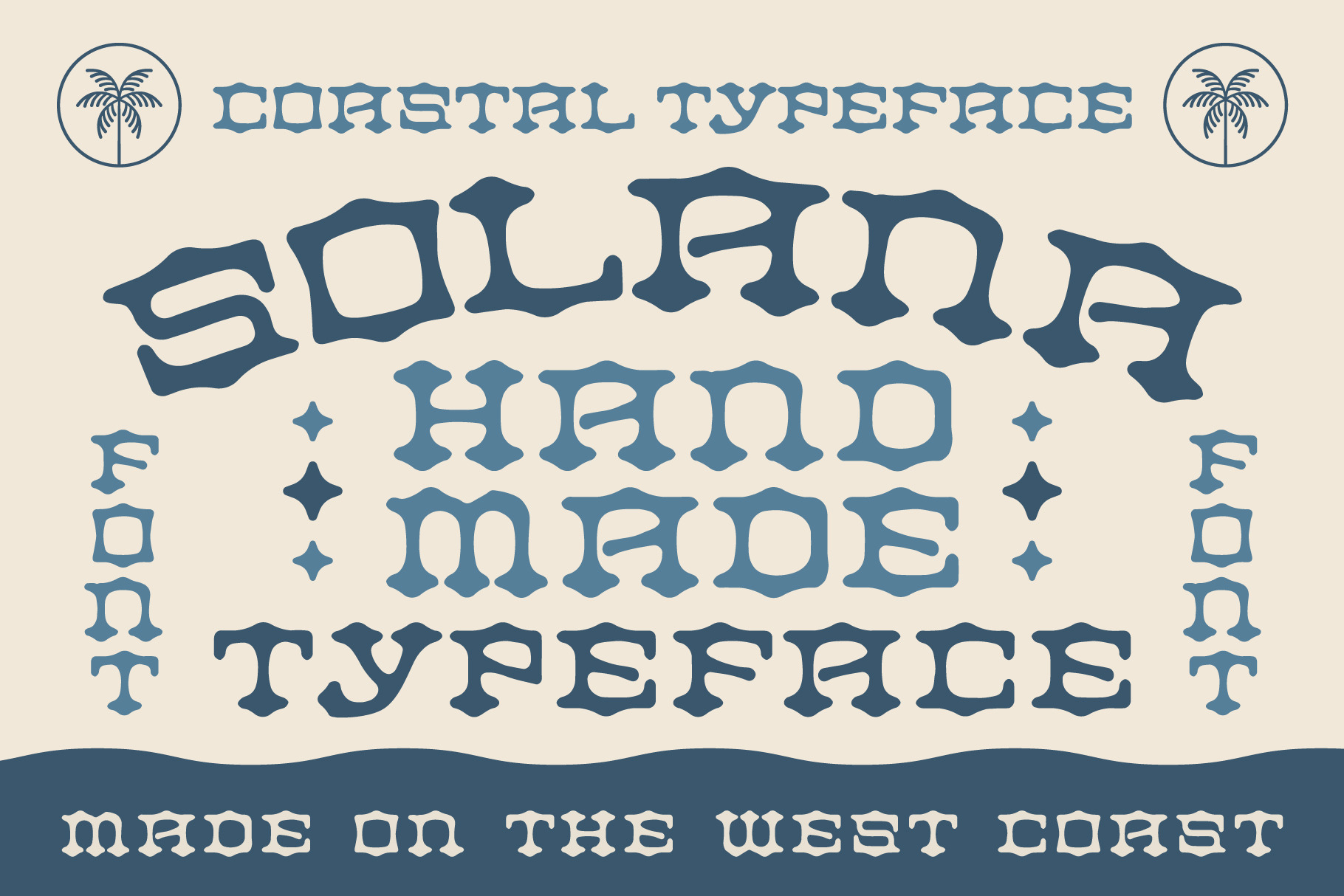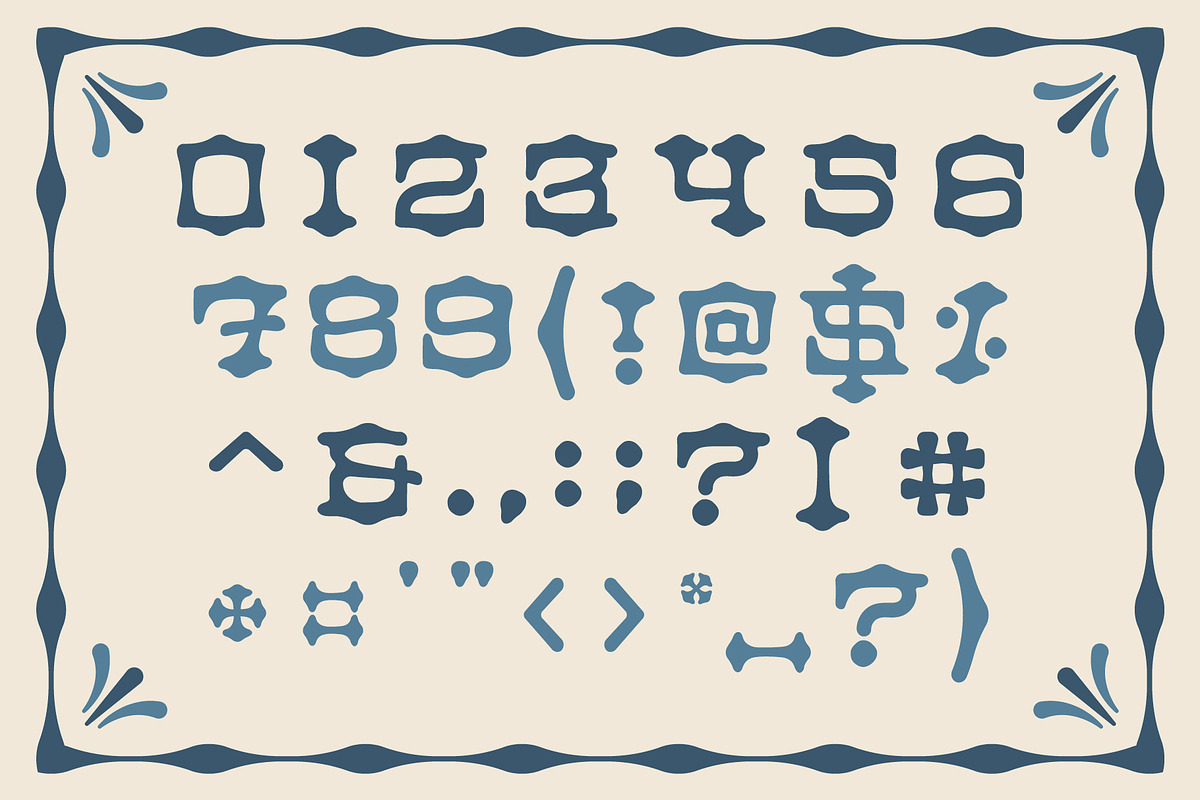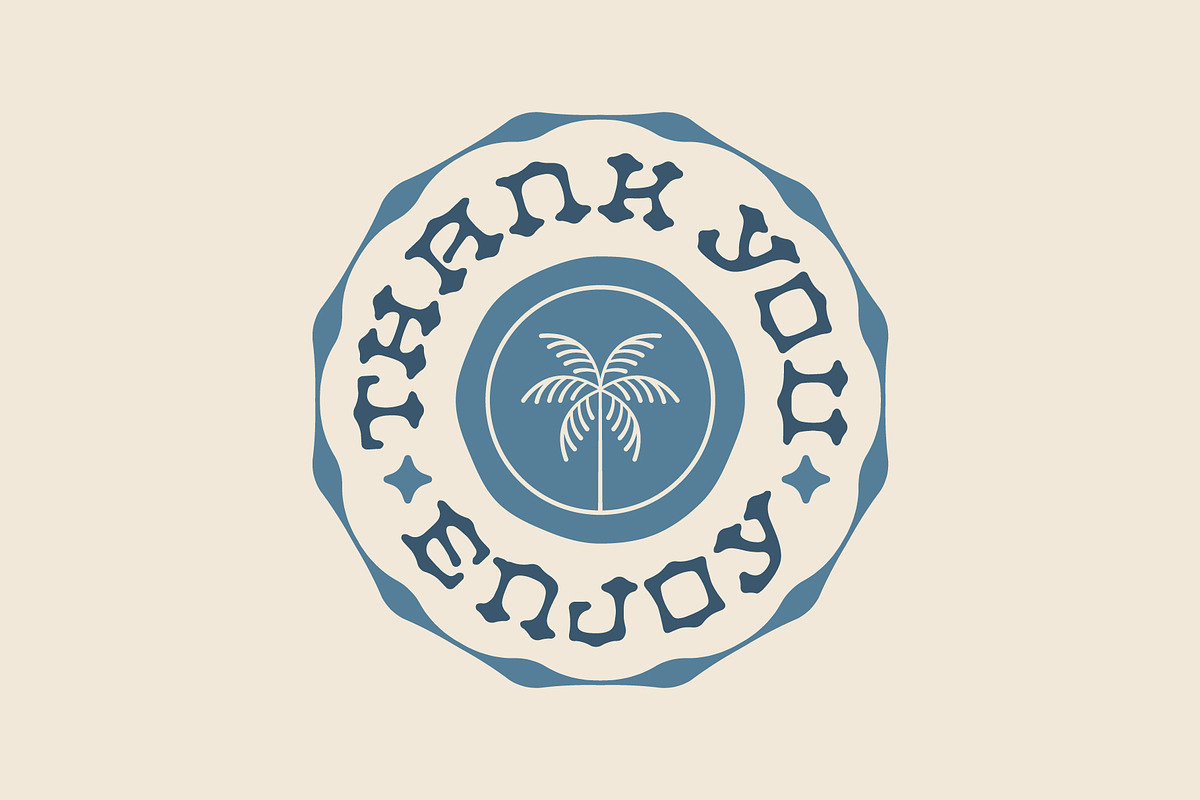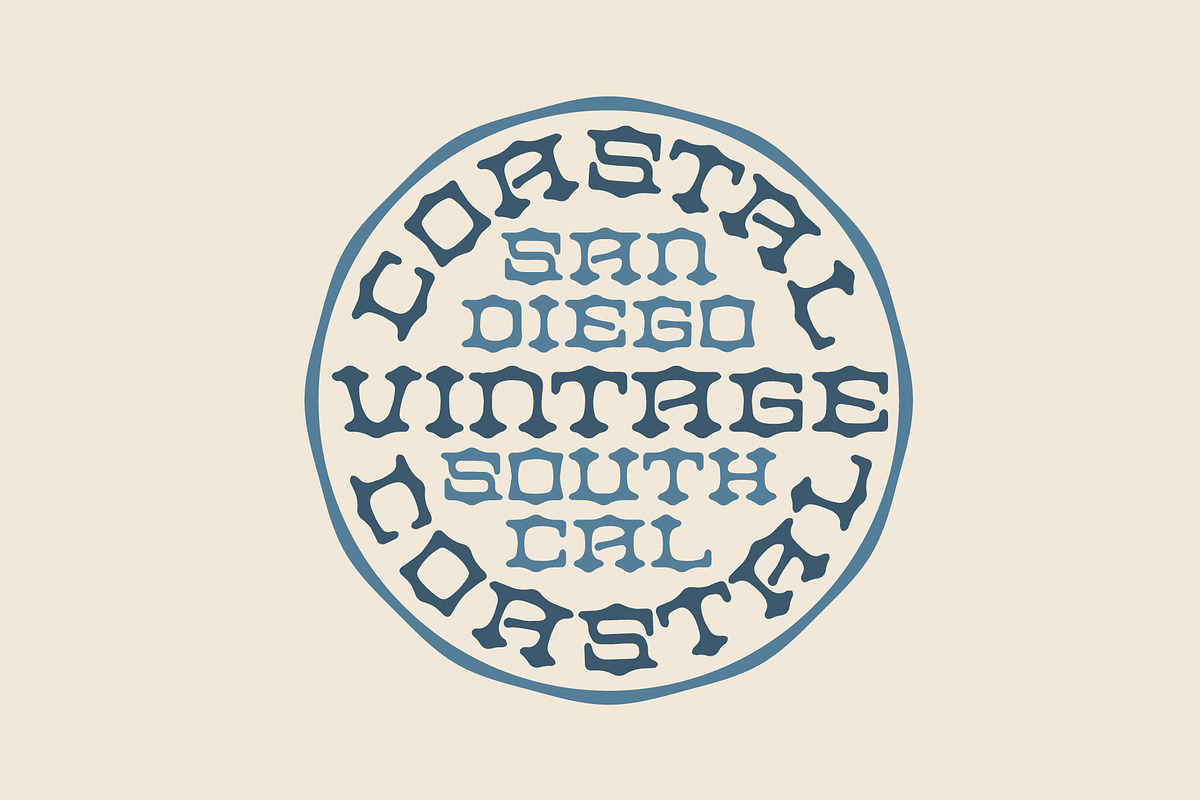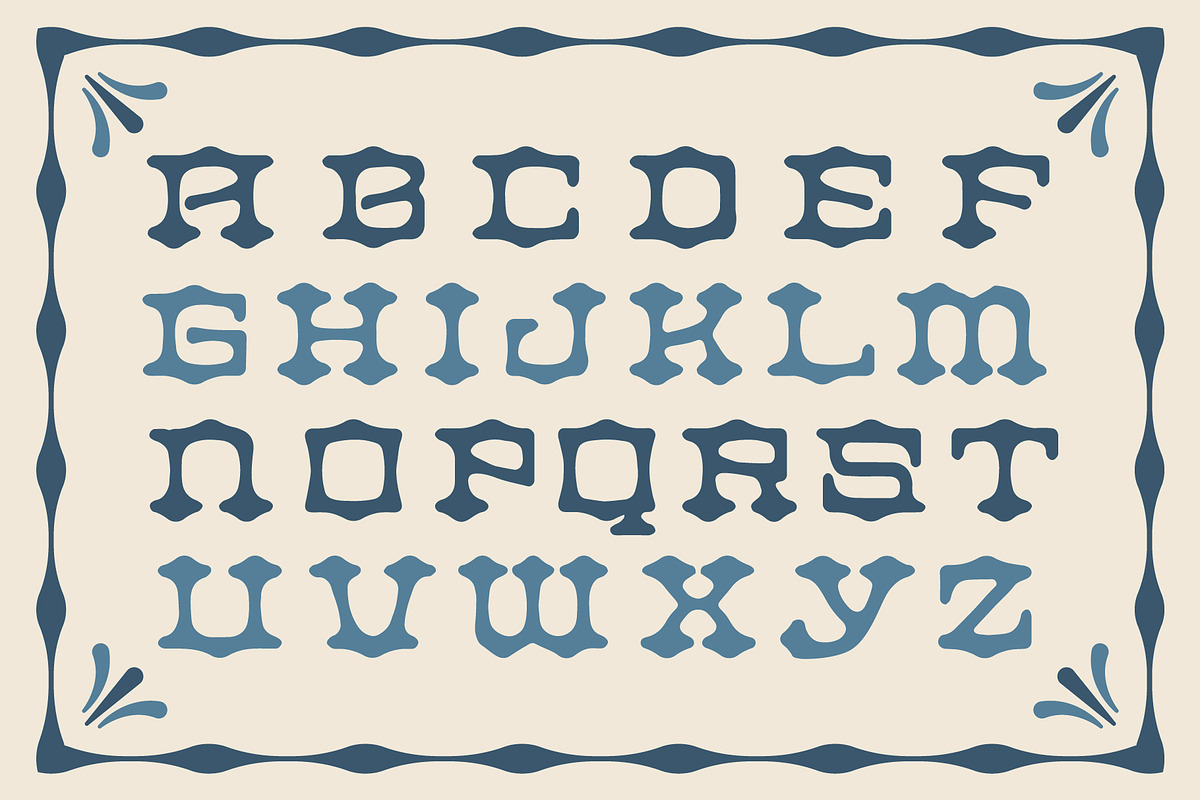
Solana Typeface | Costal Font
The Solana Typeface is a hand made, coastal inspired font. Receiving its name from the small beach town in San Diego, these letter forms feature subtle wave like features giving the typeface a natural, coastal feel. Enjoy!
Numbers and Basic Punctuation included